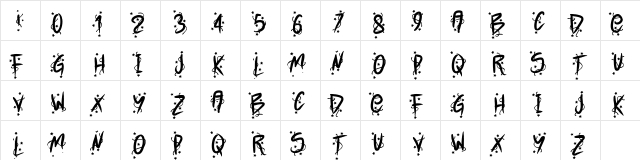
PWXmas2015 Medium
Design Context for PWXmas2015 Typeface
PWXmas2015 is a composed and adaptable typeface that performs quietly and consistently across a wide range of design contexts.